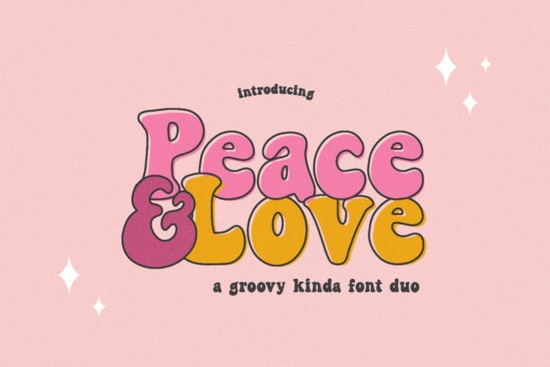
If you are designing stickers, party invitations, or toddler apparel that needs a nostalgic feel without looking messy, the Peace and Love Font gives you exactly that. It belongs to the broader group of retro display typefaces, which means each letter carries a bit of vintage flair right out of the box. You can drop it into Canva, Illustrator, or your preferred design tool and see results immediately. The thick curves and relaxed spacing make it highly readable even when scaled down for small craft blanks. For creators who sell print-on-demand gear or run an Etsy shop, having one reliable decorative typeface saves hours of searching through low-quality files.
What makes this style work for children’s projects?
Kids’ designs usually struggle with legibility versus personality. This face solves that problem because the shapes stay round and approachable. When you pair it with yellow, coral, or sky blue backgrounds, the letters pop without needing heavy drop shadows or extra graphics. I recommend testing it on water bottle labels, diaper bag covers, and nursery wall art. The retro aesthetic also crosses over nicely into boho-style baby showers or summer camp merchandise. Just keep contrast high and avoid cluttered backgrounds so the shape of each character stays clear.
How do you actually use it in your mockups?
Most successful listings start with a clean layout and a single headline. Place the text along a gentle arc or let it sit straight across the center. Layer two lines where the top line uses a slightly smaller size to create hierarchy. If you are working on digital planners or printable birthday banners, export your files at 300 DPI with transparent PNG layers for easy compositing.
Pairing matters just as much as placement. A chunky sans-serif works well underneath the main quote, while thin script types add elegance to secondary details. You might find Lovely Mama I Love You Font pairs smoothly with the rounded caps above. Similarly, exploring Varsity Team Font helps when you need athletic lettering for sports jerseys or school spirit items. Testing color combinations in grayscale first guarantees readability before you commit to a full palette.
Are there any pitfalls to watch for?
Display faces like these carry strong visual weight, so overusing them creates visual fatigue. Keep body copy in a neutral sans-serif or clean serif, and reserve the decorative typeface for headlines, tags, or short phrases. Another common mistake is stretching the font horizontally to fit a banner. Always scale uniformly, then adjust tracking if you need more breathing room between characters.
Where should you go next after downloading?